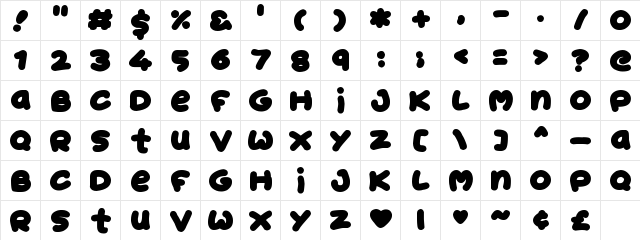
Jelly Donuts Regular
Design Context for Jelly Donuts Typeface
Jelly Donuts is a composed and adaptable typeface that performs quietly and consistently across a wide range of design contexts.